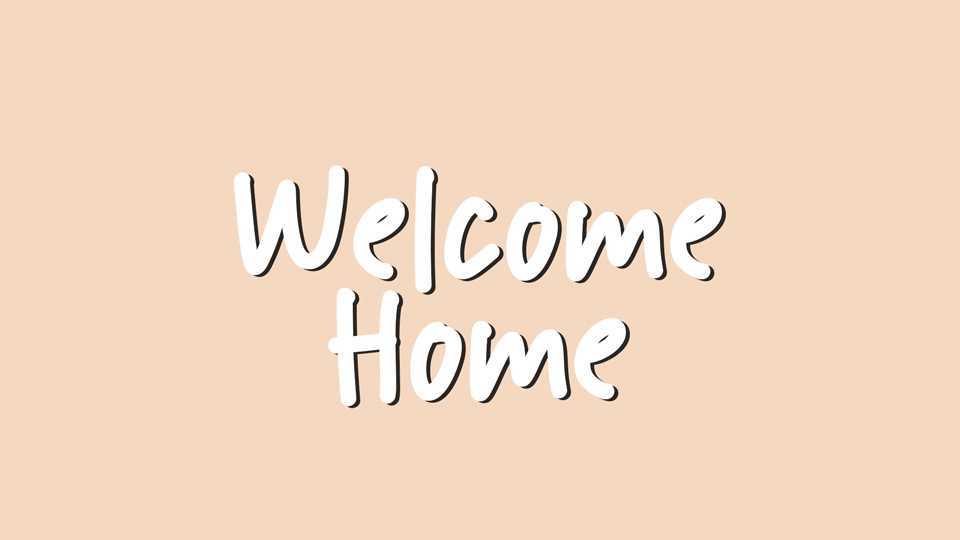
Download Welcome Home font, a simple and casual handwritten typeface that will add a natural touch to any project. Handcrafted with care, Welcome Home font is well suited to create everything from notes and quotes to comic books and packaging – all with an authentic feel.